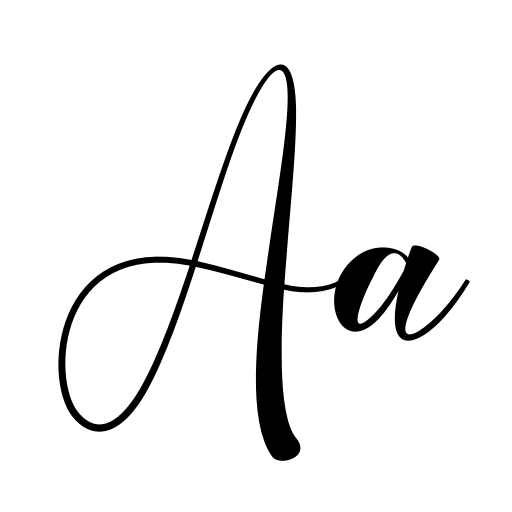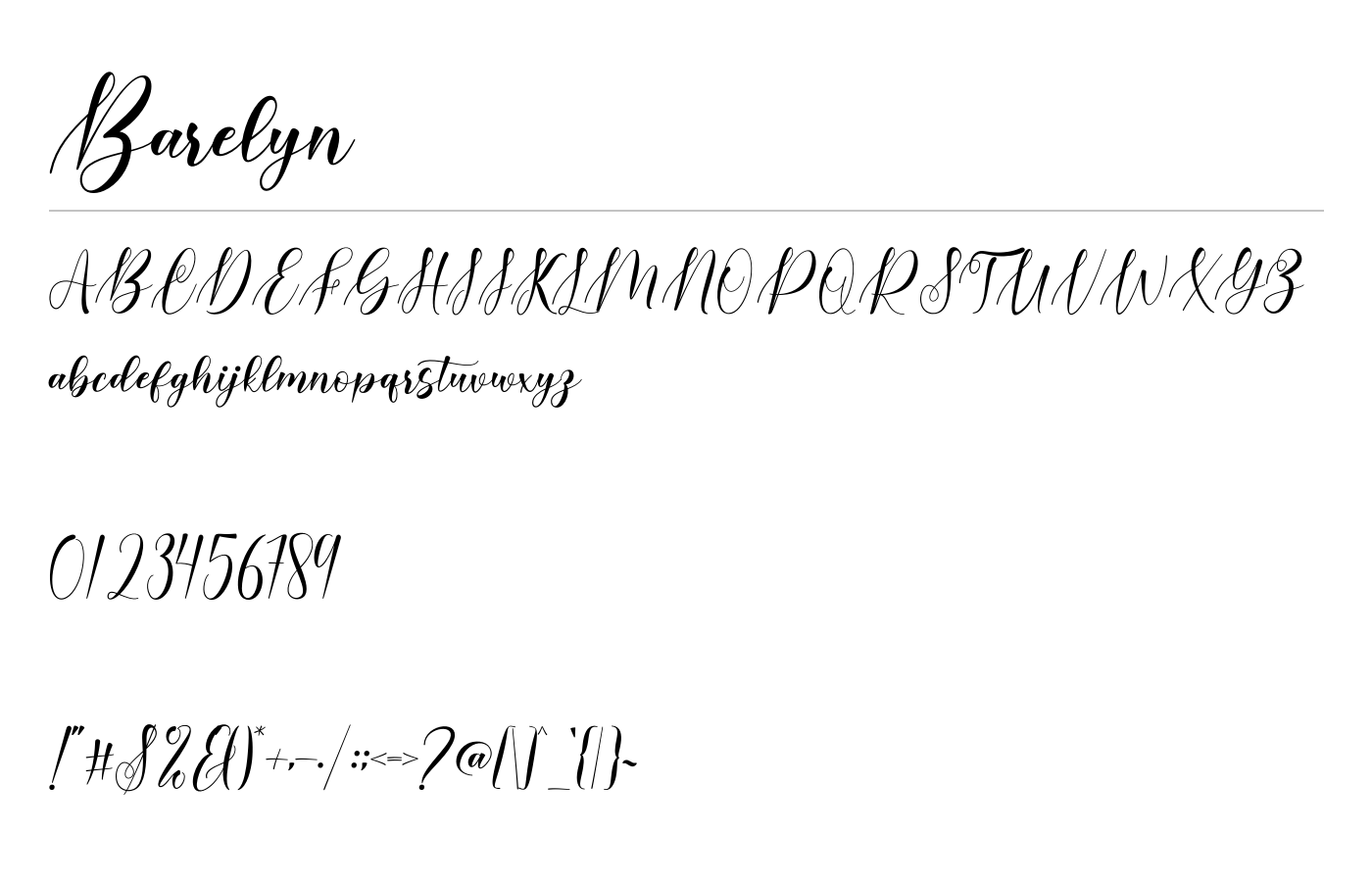
Barelyn is an elegant, handwritten script font featuring delicate and flowing letterforms with a high contrast between thick and thin strokes. Its graceful cursive style, including looping uppercase letters and smooth lowercase characters, makes it perfect for invitations, branding, and designs that seek a sophisticated, romantic touch. This font works best in decorative headlines or logos where a stylish, personal feel is desired.
Barelyn Font
About Barelyn Font
| Font family | Barelyn Font |